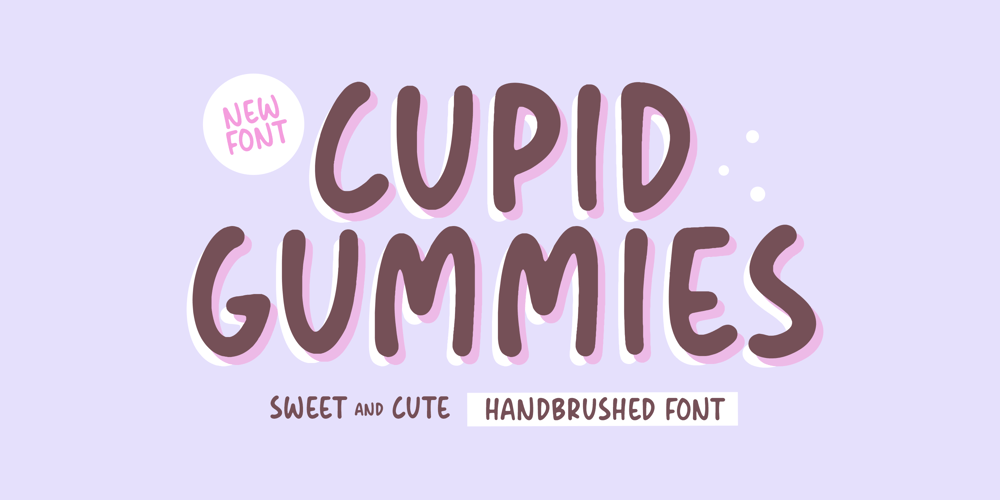
Cupid Gummies Font Family was designed by Restu Angga and published by Balpirick. Cupid Gummies contains 1 styles and family package options. Cupid Gummies is a Sweet and Cute Handbrushed Font.Whether you’re using it for crafts, digital design, presentations, or making greeting cards, this font has the potential to become your favorite go-to font, no matter the occasion!This font only has allcaps letters. – also multilingual supportEnjoy the font! Feel free to comment or feedback!Thank you!